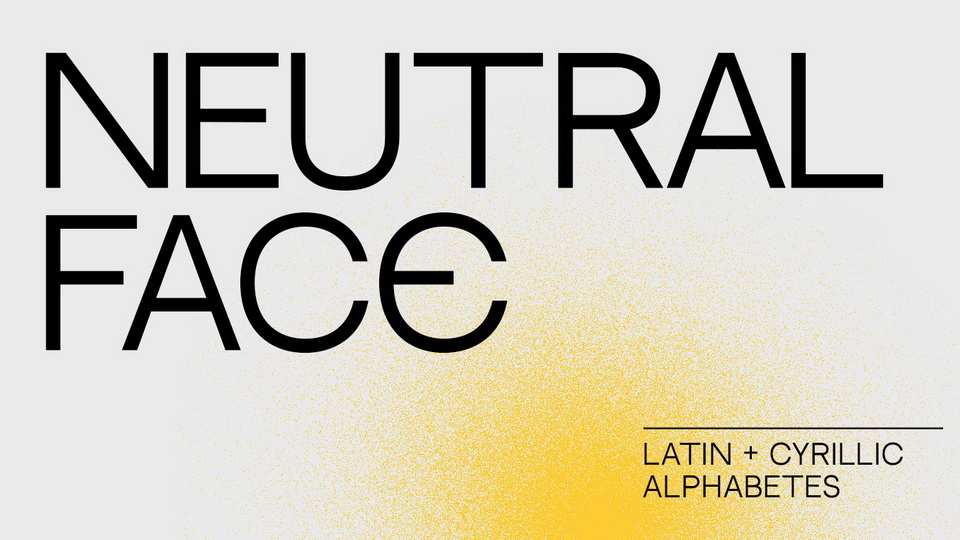
What Is A Neutral Font Family. Neutral grotesk is a flawless font branching from the. Created and shared for free by vadym axieiev, it offers its users latin and cyrillic letters, both of which are available in 2 styles (bold and regular) with a commercial license.
Neutral Font Family 6 Otf Neutral Began As Kai Bernau’s Graduation Project At Kabk (The Royal Academy Of Art, The Hague), Taking Inspiration From Typefaces That Seem Ageless, Remaining Fresh And Relevant Even Decades After They Were Designed.
Neutral grotesk is a flawless font branching from the. Neutral grotesk designed by nawras moneer. Design & style understanding font families: